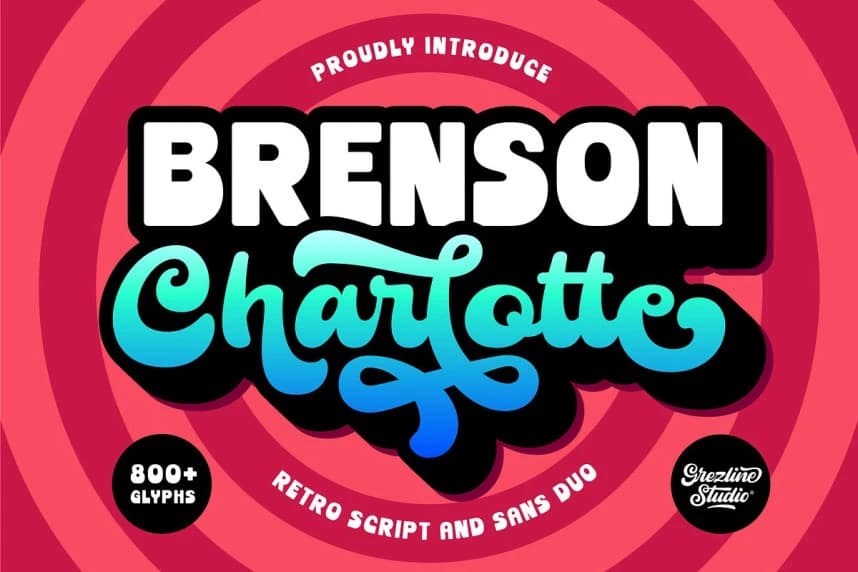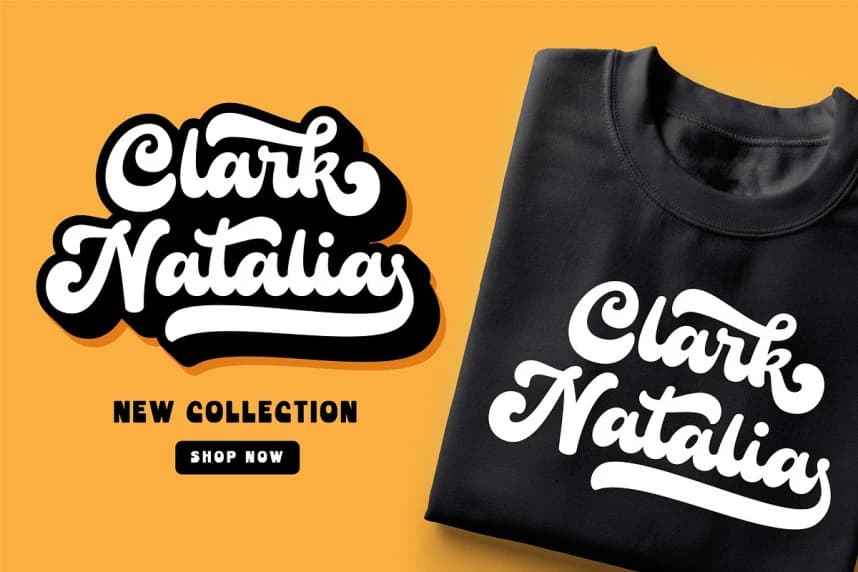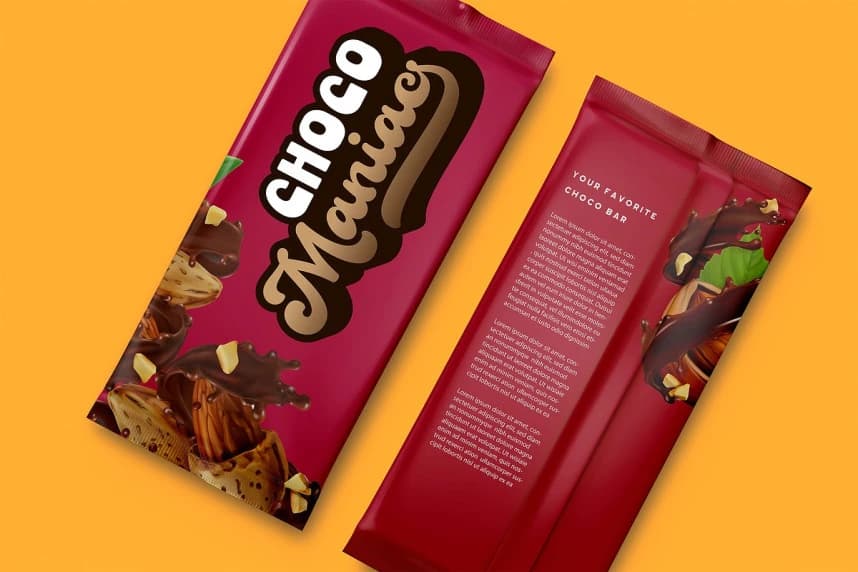
Brenson Charlotte Font
Brenson Charlotte Font is a unique retro script and sans font duo. It has a bold and dynamic looks and is perfect for making any design stand out. Brenson Charlotte is perfect use for a logotype, typography design, product packaging, quotes, t-shirt design